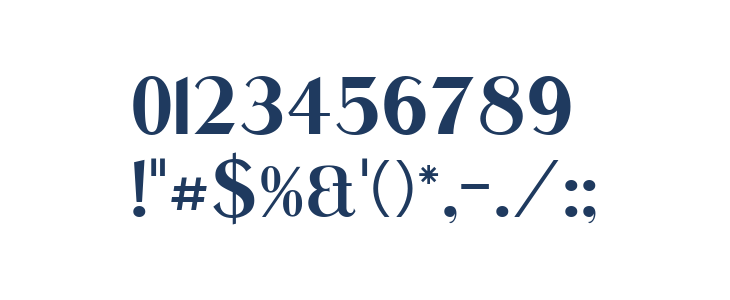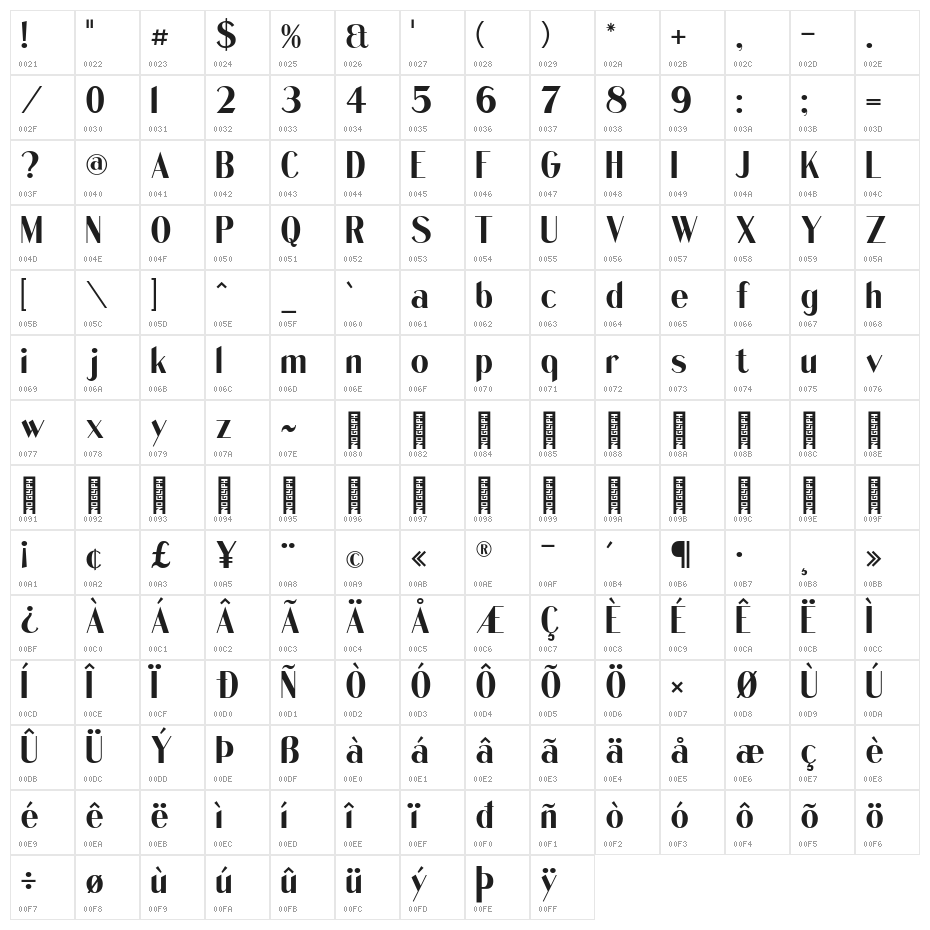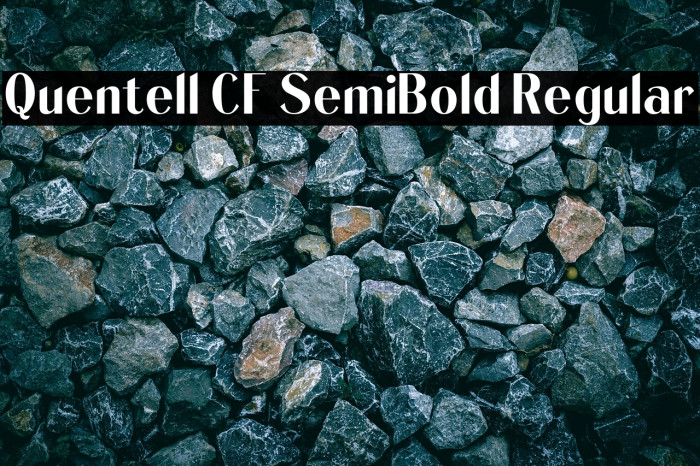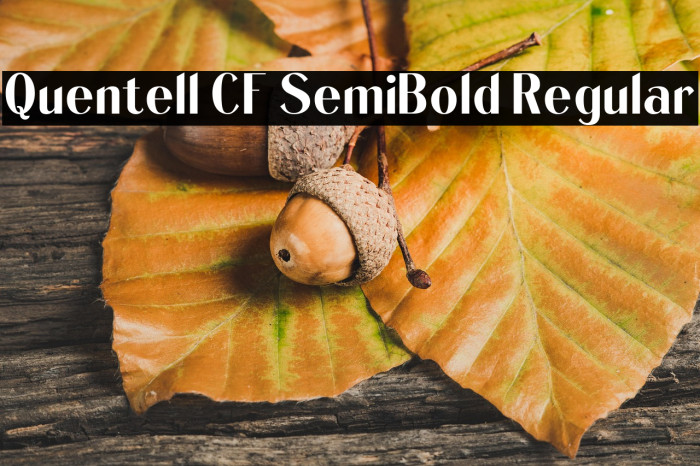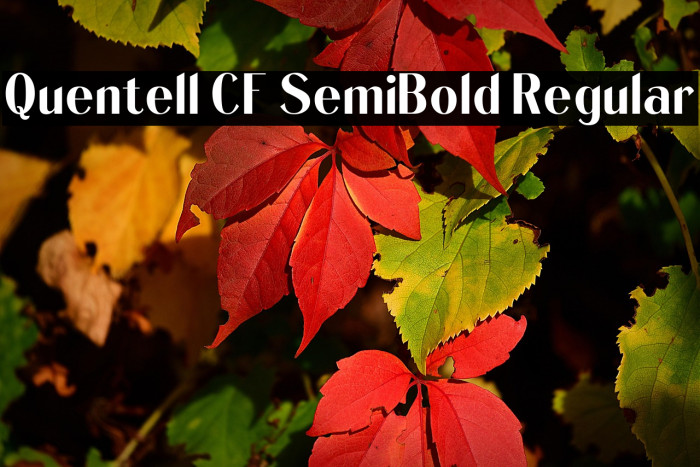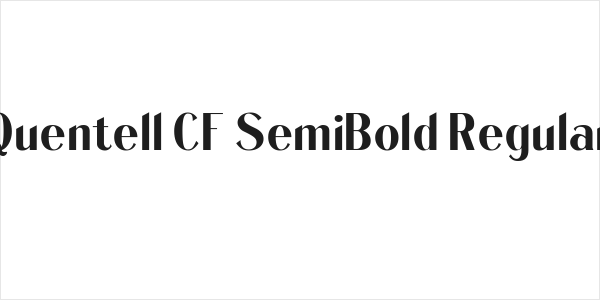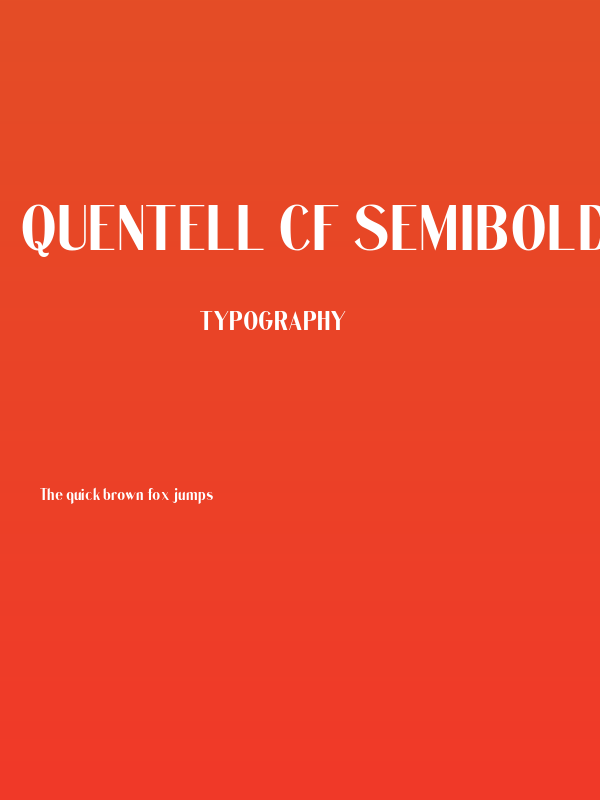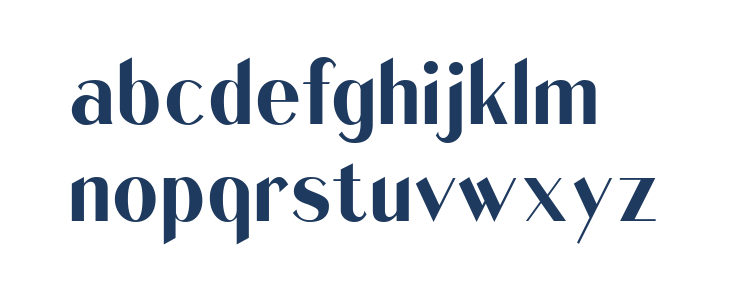
Quentell CF SemiBold Regular Font
Quentell CF SemiBold Regular Description
This font exhibits a bold and dynamic style with a modern twist. The uppercase letters are tall and slightly condensed, featuring sharp, clean lines that give a sense of elegance and sophistication. The lowercase letters maintain a consistent style, with smooth curves and a balanced structure. The numerals are bold and clear, ensuring readability. Special characters are designed with a unique flair, adding to the font's overall aesthetic. This font's design is versatile, making it suitable for various applications where a strong and stylish impression is desired.